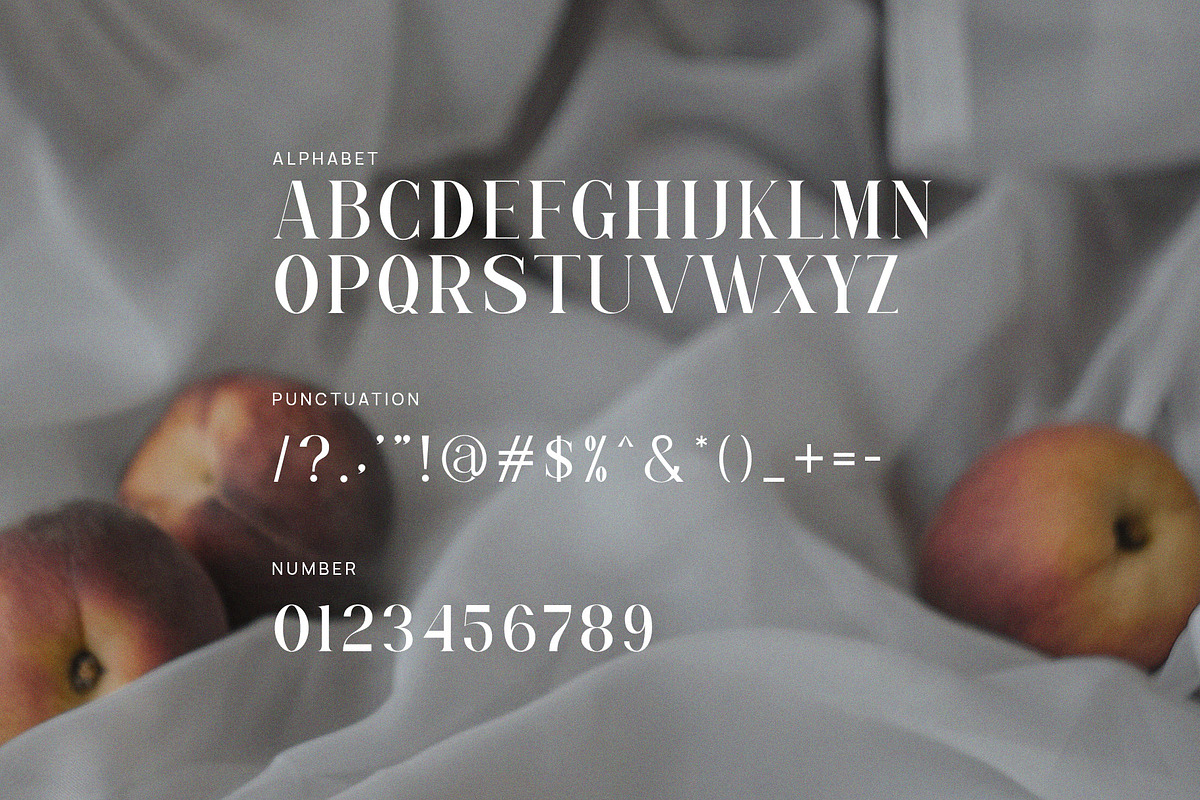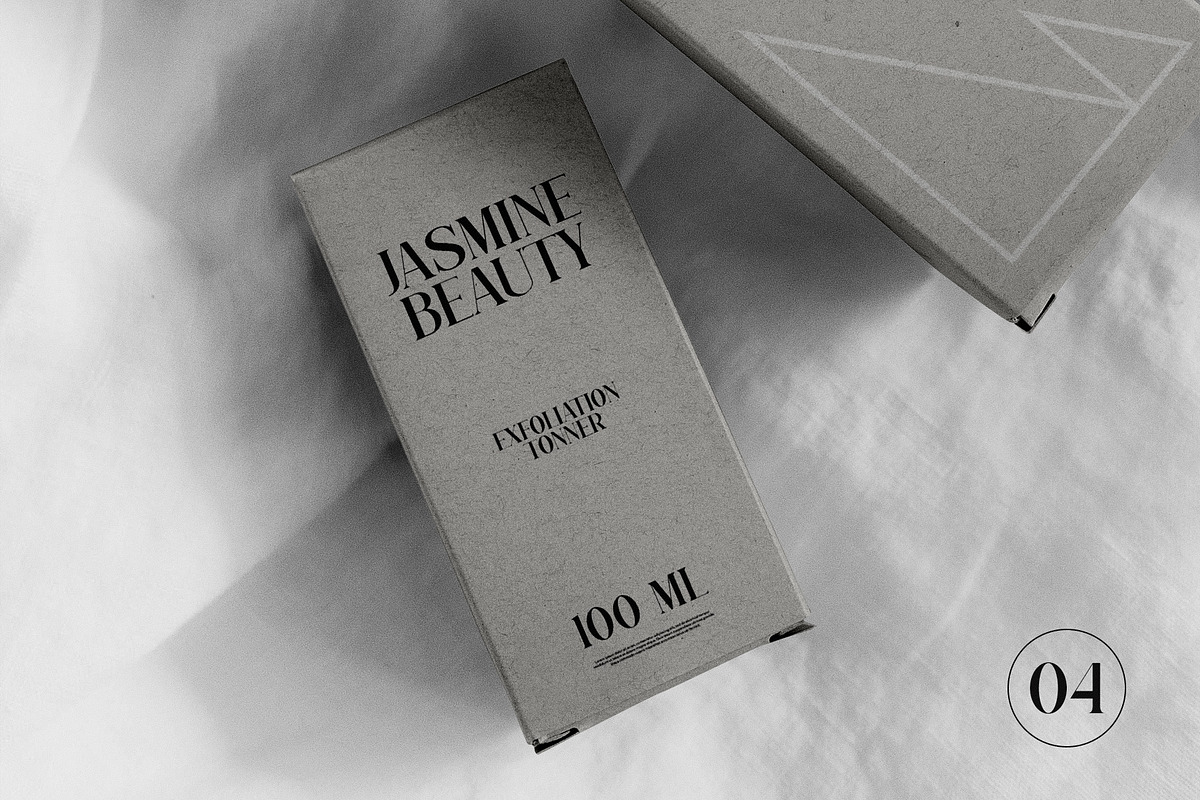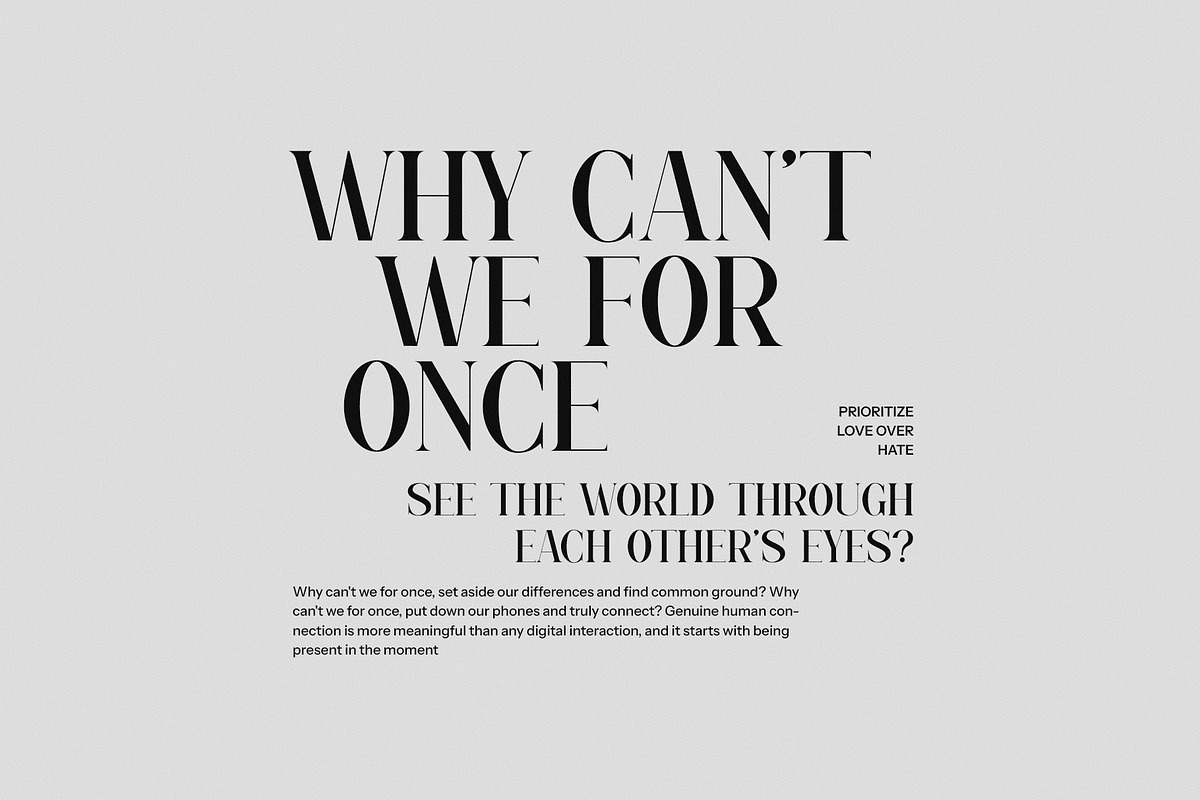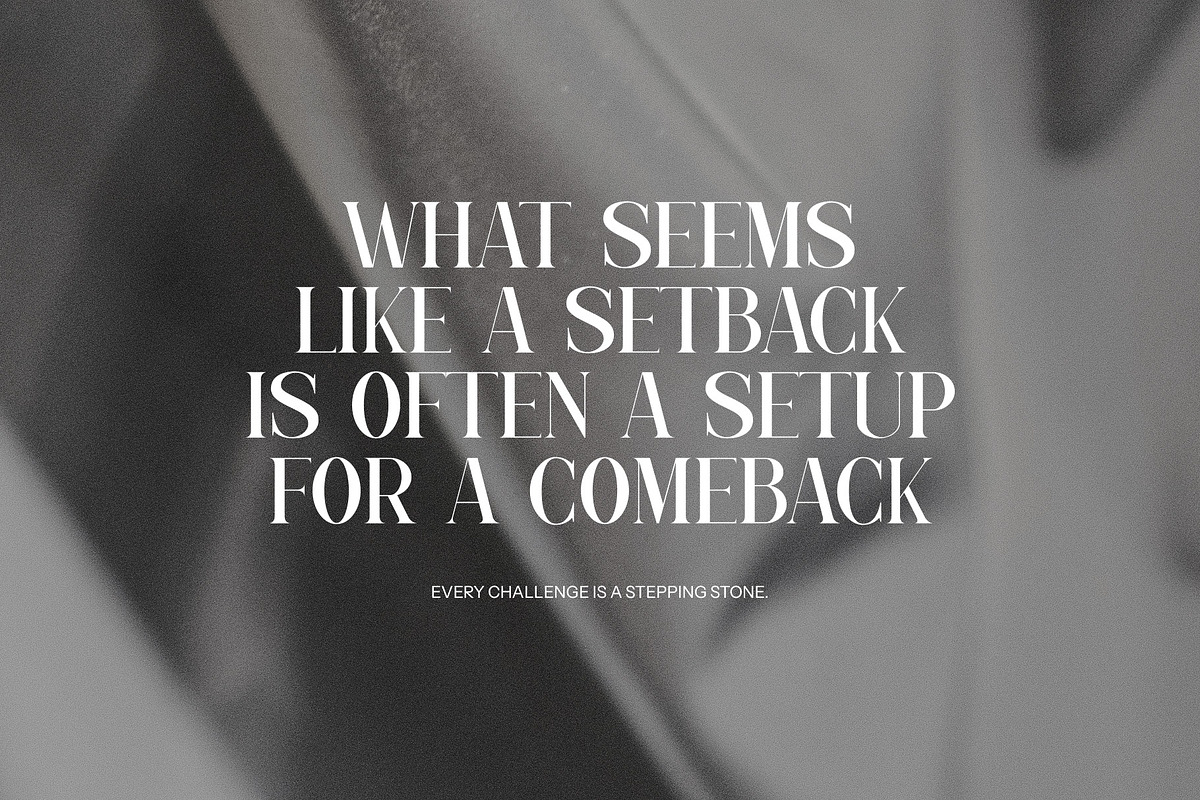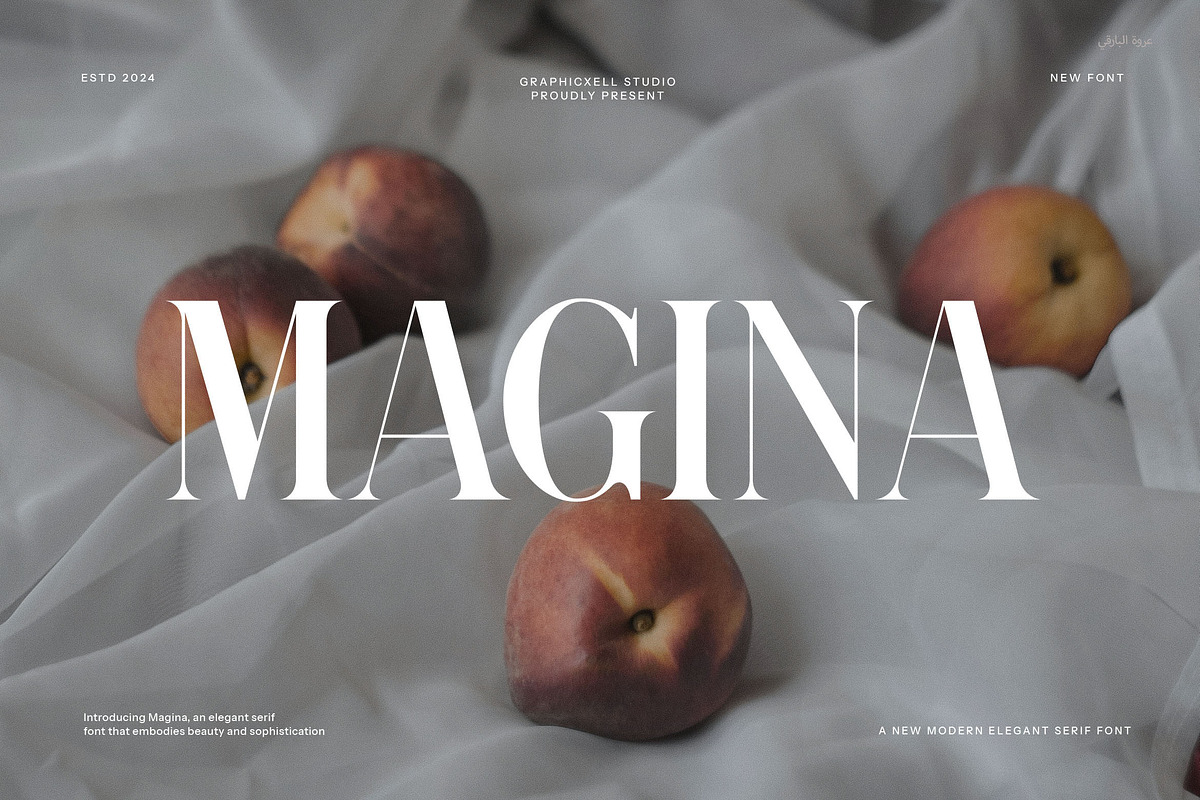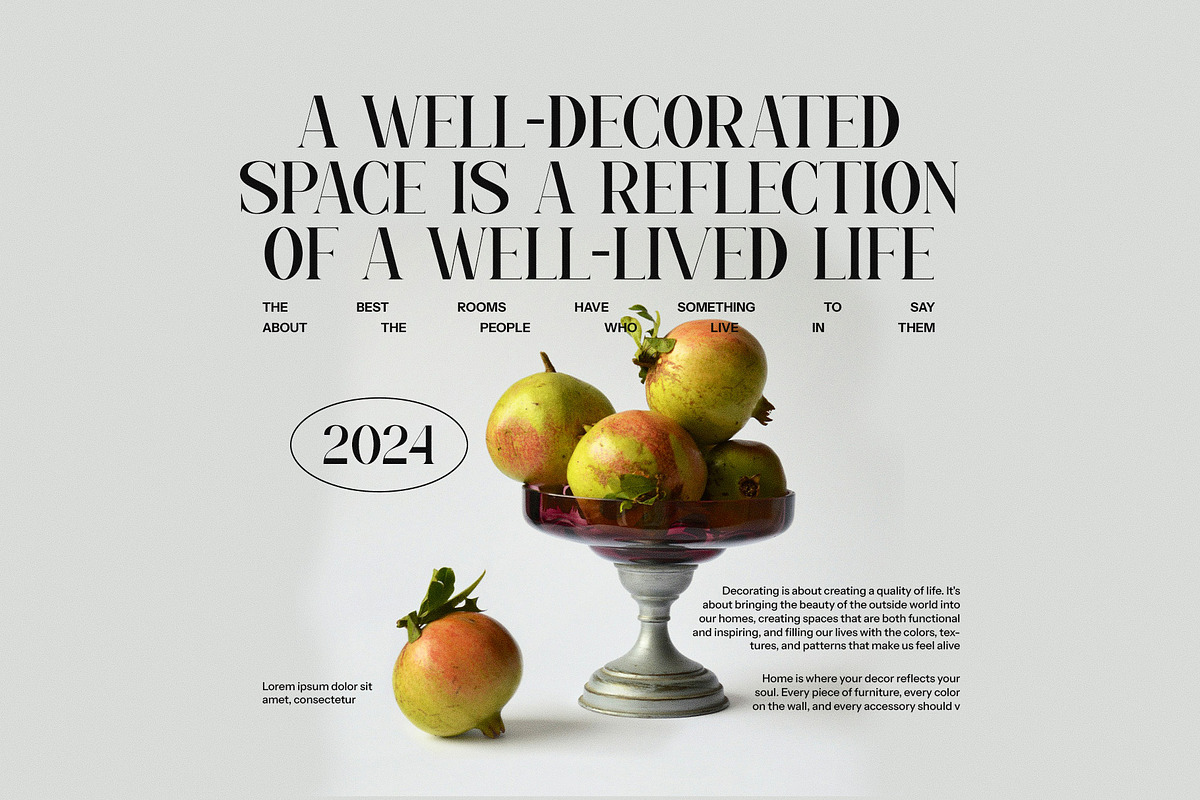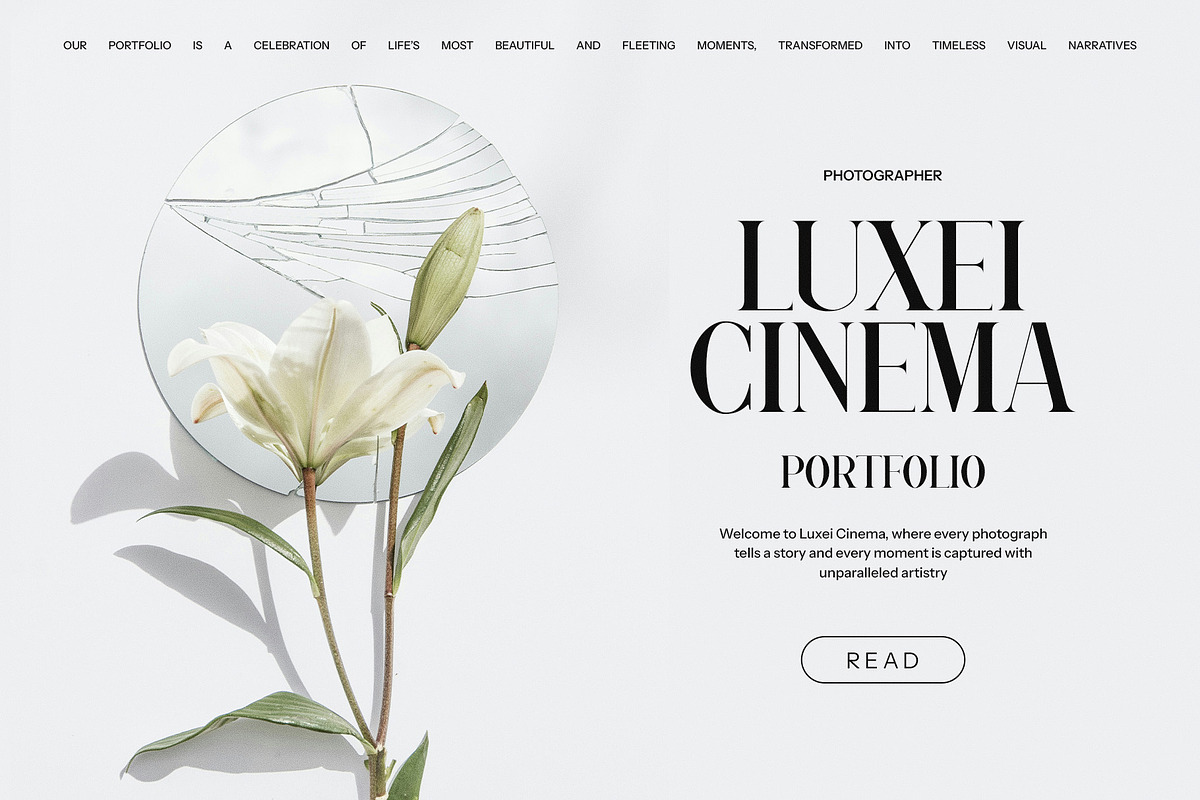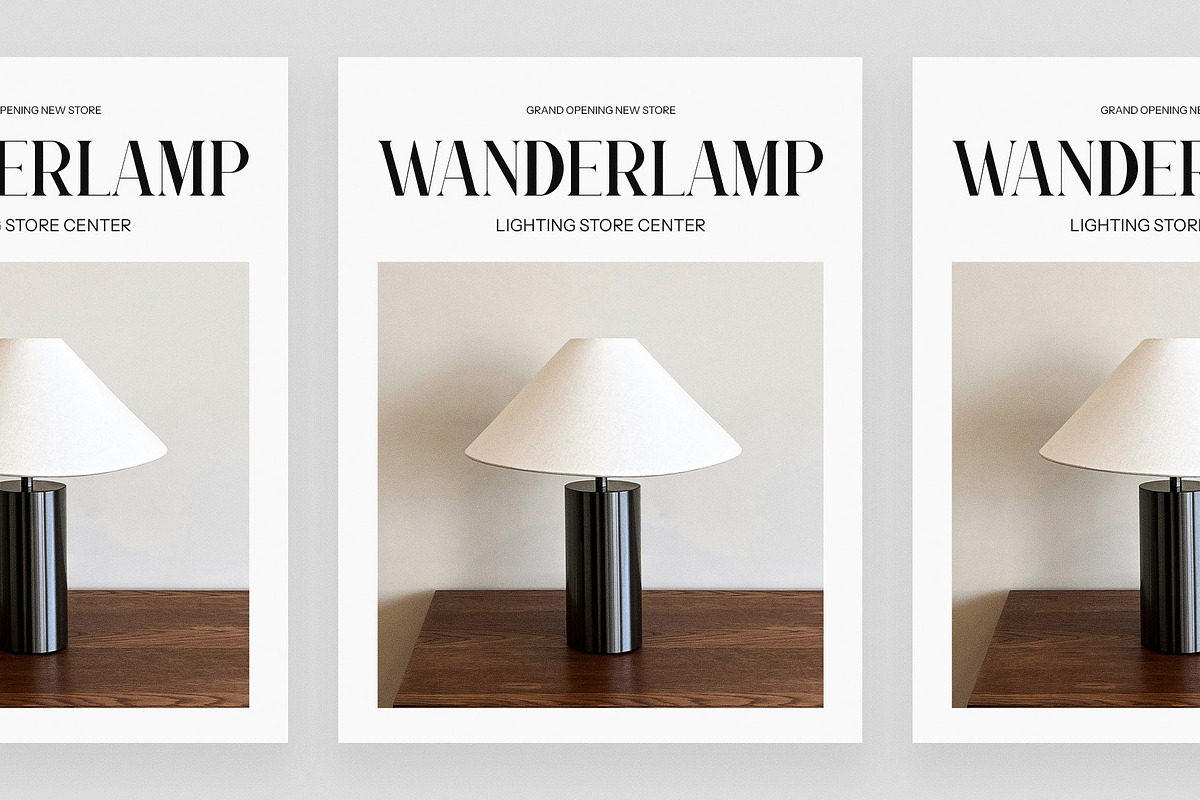
Magina Modern Serif Font By Graphicxell
- With the addition of ligature, this font can elevate your design significantly.
Why Magina Modern Serif Font By Graphicxell is worth a look
Magina Modern Serif Font By Graphicxell by Graphicxell fits naturally into Branding, posters, packaging, typography.